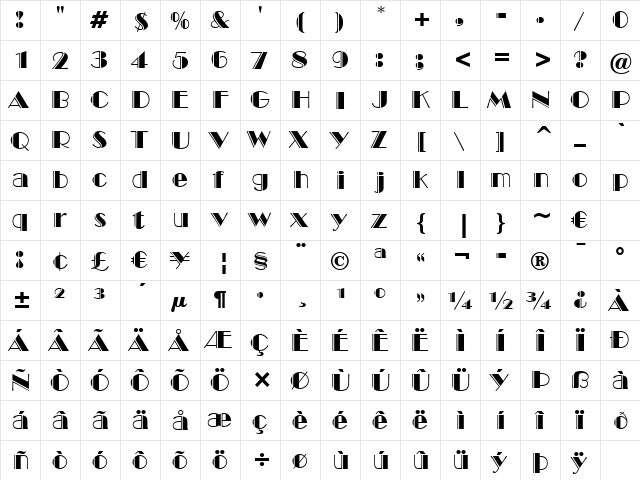
BroadwayEngraved BT Engraved
Design Context for BroadwayEngraved BT Typeface
BroadwayEngraved BT brings ornamental detail and strong personality to headlines and identities, where visual impact matters more than quiet functionality.
Font Pairing: Pair with a clean neutral sans-serif for body copy to let BroadwayEngraved BT's character lead without overwhelming the composition.
Pro Tip: Use BroadwayEngraved BT exclusively at display sizes — it was designed to be seen, not read at length. Let a neutral companion handle body copy.